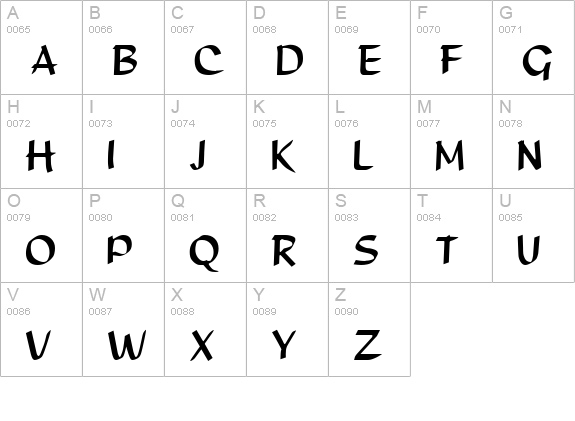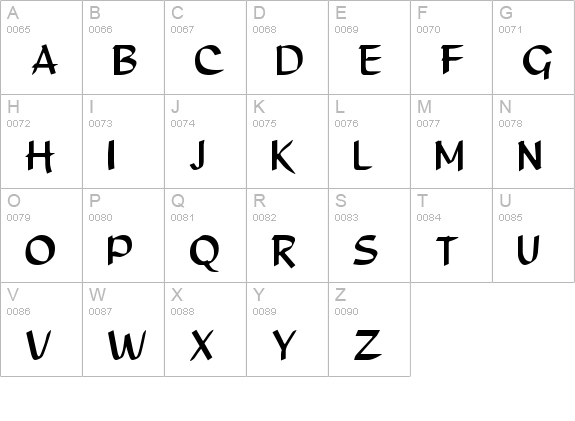
Danton Font Details
Introducing Danton font, a stylish and versatile typeface that is sure to make your designs stand out. With its elegant and modern look, Danton is perfect for a wide range of projects, from branding and advertising to packaging and web design. This font features clean lines, subtle curves, and a unique character that will add a touch of sophistication to any design. The best part? Danton font is completely free to download at FontsMarket.com! Whether you're a professional designer or just starting out, this font is a must-have in your collection. Don't miss out on the opportunity to elevate your designs with this beautiful and free typeface. Download Danton font today and see the difference it can make in your projects.